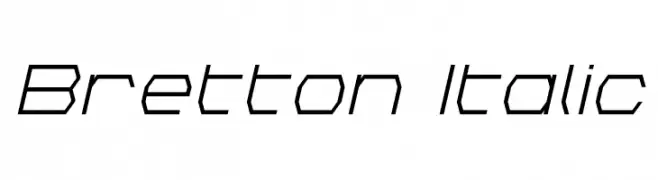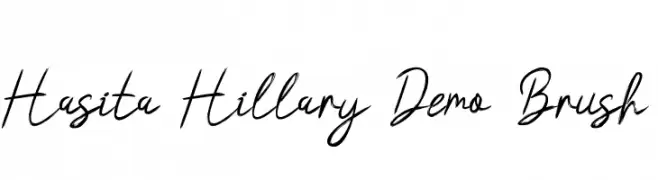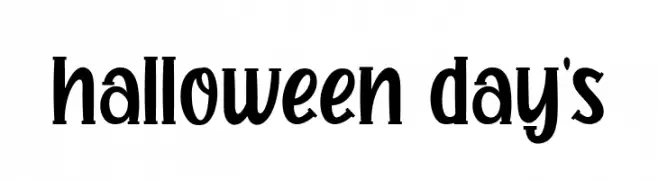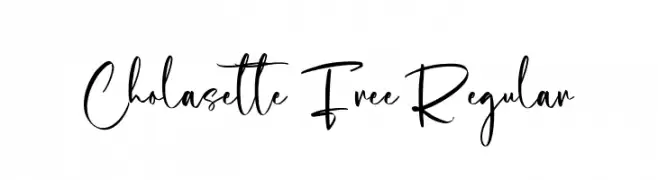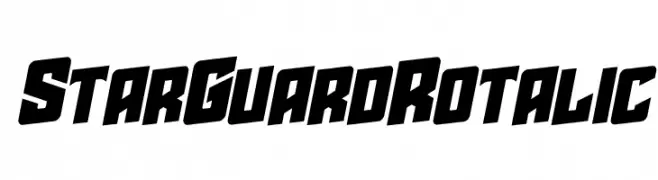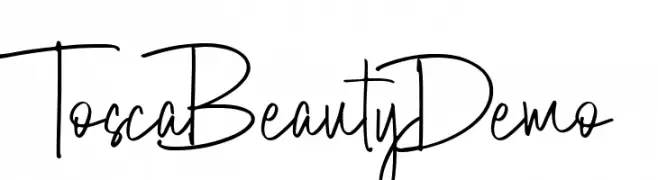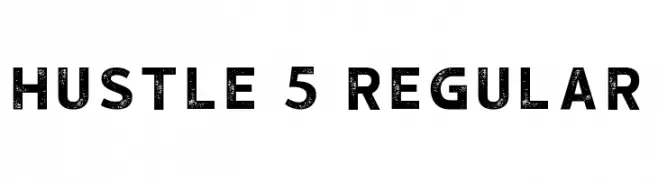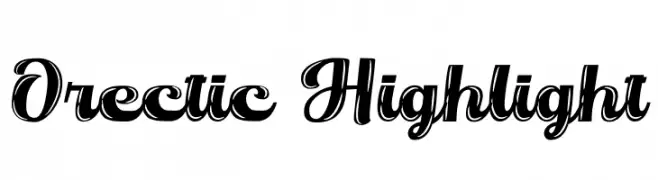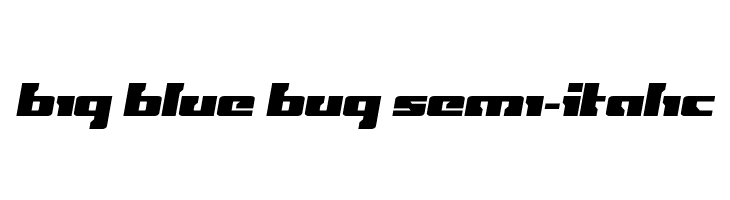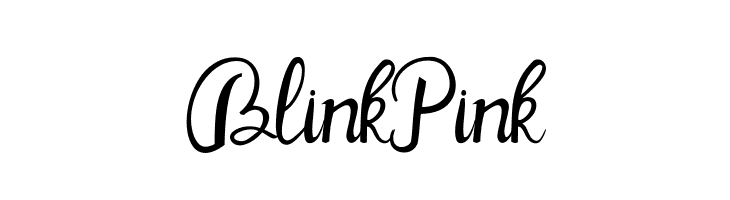
A modern, geometric italic font with angular lines and a futuristic aesthetic.
A dynamic brush script font with a hand-drawn, artistic style.
A playful, spooky font with a hand-drawn, whimsical style.
A dynamic and expressive handwritten font with fluid, flowing letterforms.
An elegant script font with flowing cursive style and intricate swashes.
A playful, bold font with dotted accents and a hand-drawn feel.
A bold, slanted font with sharp angles and a dynamic, modern style.
A flowing, cursive handwritten font with elegant connections and smooth strokes.
A bold, distressed font with a vintage, textured style.
A bold, decorative font with a shadow effect and cursive connections.